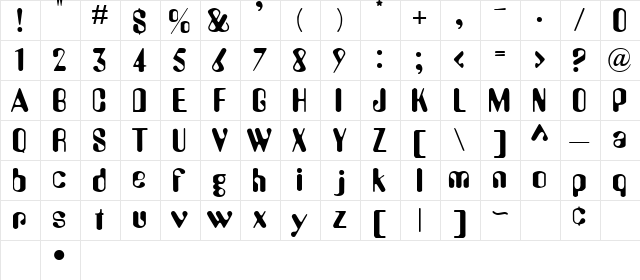
AlienEye Regular Font Preview
AlienEye Regular
Design Context for AlienEye Typeface
AlienEye is a composed and adaptable typeface that performs quietly and consistently across a wide range of design contexts.